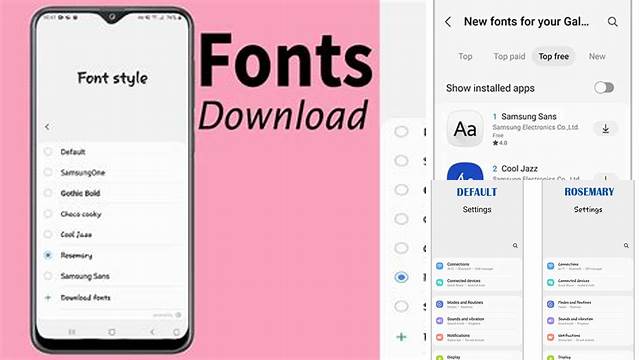
Free Samsung A30 Font Styles: Download & Customize!
Hey guys! Are you looking to jazz up your Samsung A30 with a fresh new font style? Well, you've come to the right place! In this comprehensive guide, we'll walk you through everything you need to know about downloading and installing new fonts on your Samsung A30, completely free of charge. We'll cover the basics of font customization on Android, explore various sources for free fonts, provide step-by-step instructions for installation, and even offer some troubleshooting tips in case you run into any snags. So, buckle up and let's dive into the exciting world of font customization!
Why Customize Your Font Style?
Before we get into the how-to, let's talk about the why. Customizing your font style on your Samsung A30 can breathe new life into your device and make it truly your own. Think about it – you use your phone every single day, and the visual experience plays a huge role in your overall satisfaction. Sticking with the same old default font can get a bit monotonous, right? By changing the font, you can add a personal touch that reflects your style and preferences. Imagine boldly expressing your personality every time you unlock your phone or send a message! Plus, different fonts can improve readability, making it easier and more enjoyable to consume content on your device. Whether you prefer a sleek and modern sans-serif font, a playful and quirky handwritten font, or a classic and elegant serif font, there's a whole universe of options out there waiting to be explored.
The benefits of customizing your font style extend beyond just aesthetics. A well-chosen font can enhance the overall user experience by improving readability, reducing eye strain, and even boosting productivity. For example, if you spend a lot of time reading articles or emails on your phone, opting for a font that's specifically designed for readability can make a world of difference. Some fonts have wider letter spacing, taller x-heights, or more distinct letterforms, all of which contribute to a more comfortable reading experience. Similarly, if you struggle with visual impairments, you might find that certain fonts are easier to see and distinguish than others. In short, customizing your font style is not just about making your phone look pretty – it's about optimizing it for your individual needs and preferences.
Furthermore, font customization is a fantastic way to stay up-to-date with the latest trends and express your individuality. Just like fashion trends change over time, so do font preferences. What was considered stylish a few years ago might look dated today. By regularly changing your font, you can keep your phone looking fresh and modern. It's also a great way to showcase your unique personality and interests. If you're a fan of minimalist design, you might opt for a clean and geometric font. If you're more of a creative type, you might prefer a whimsical and artistic font. The possibilities are endless, and the choice is entirely yours. So, why settle for the default font when you can unleash your creativity and make your Samsung A30 a true reflection of yourself?